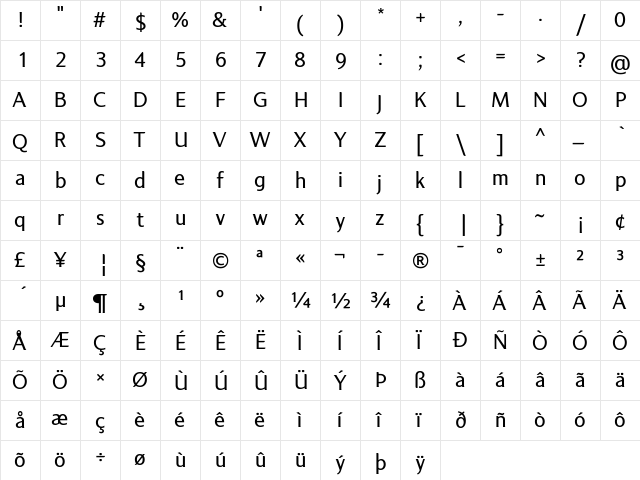
LT Internet Regular
Regular ·  Dan P. Lyons ·
DesignerDan P. Lyons
Design Context for LT Internet Typeface
LT Internet takes a measured approach to typography — its balanced proportions and neutral character make it a reliable workhorse for both digital and print work. Its slender proportions lend an understated elegance to any composition.